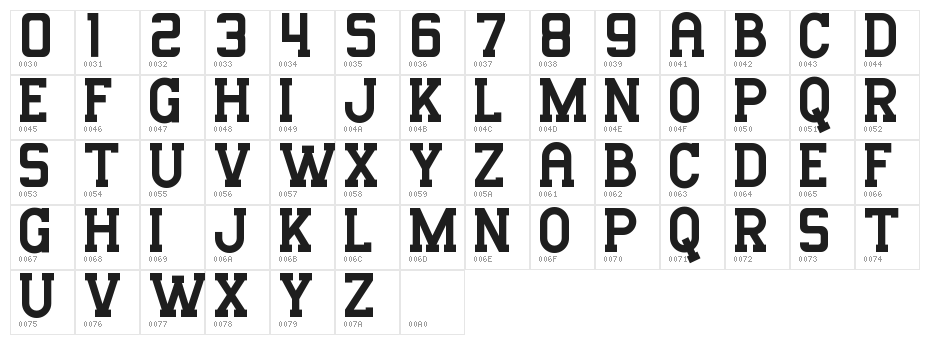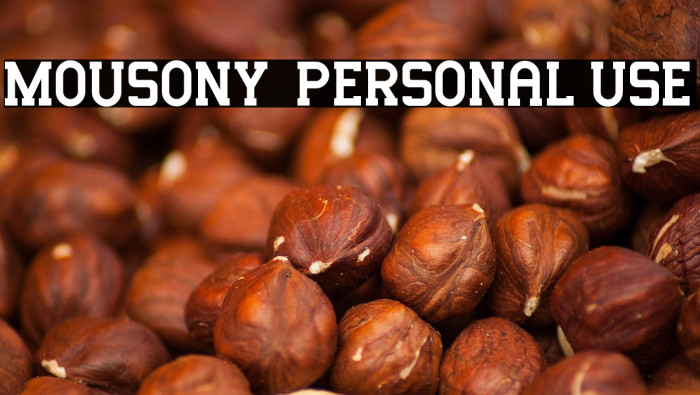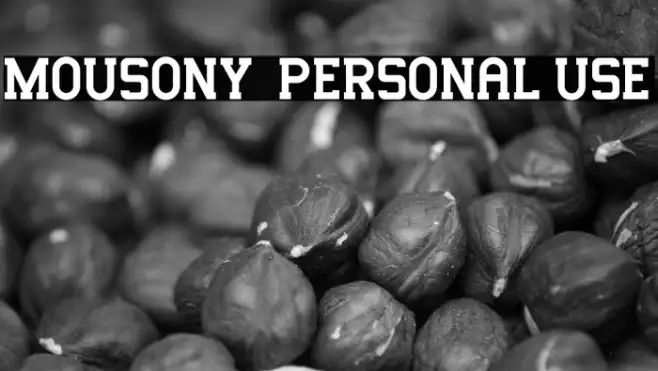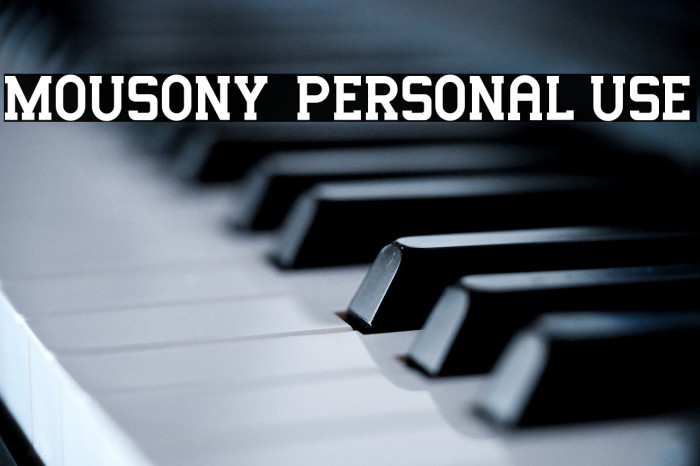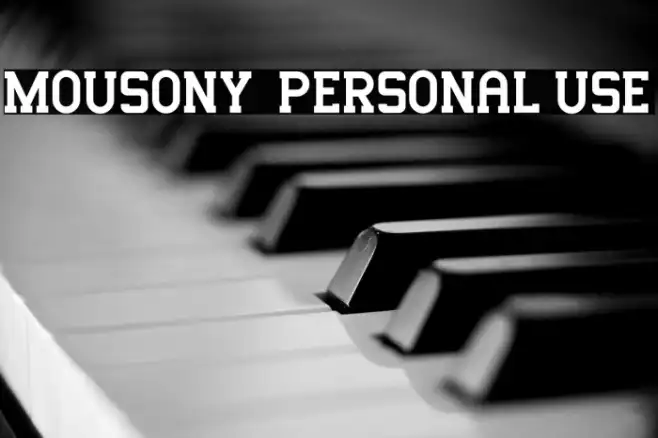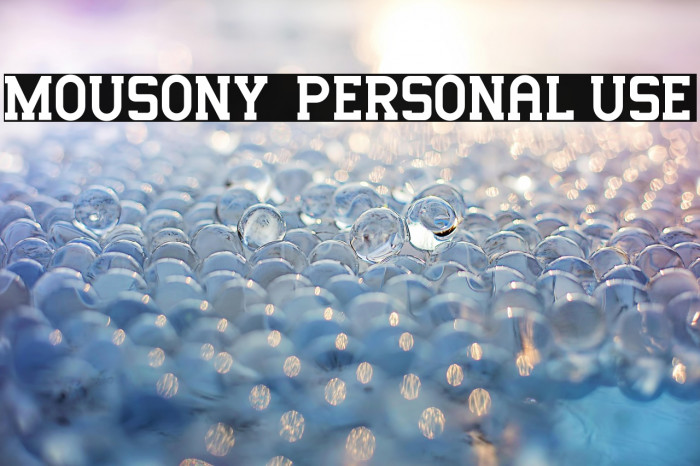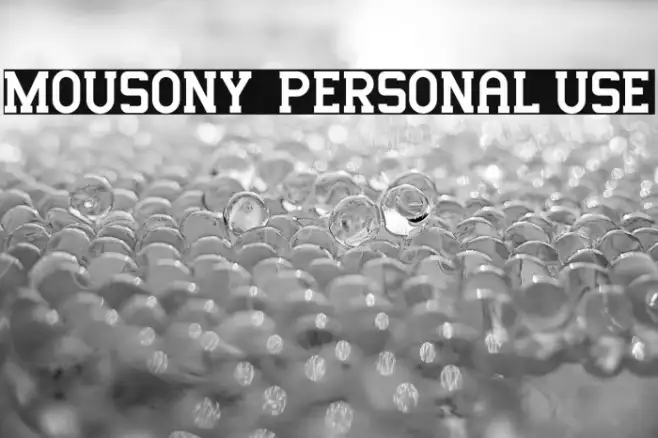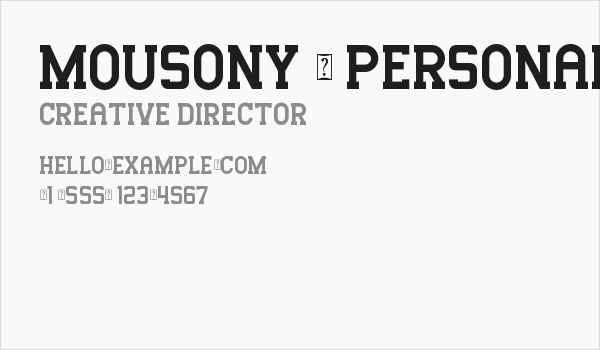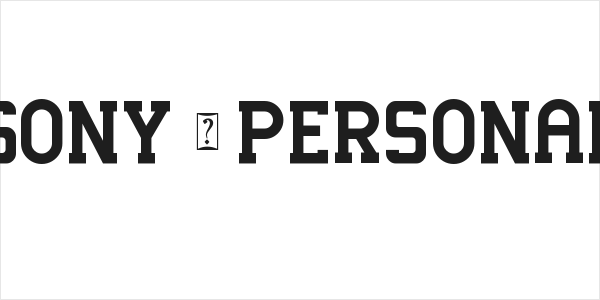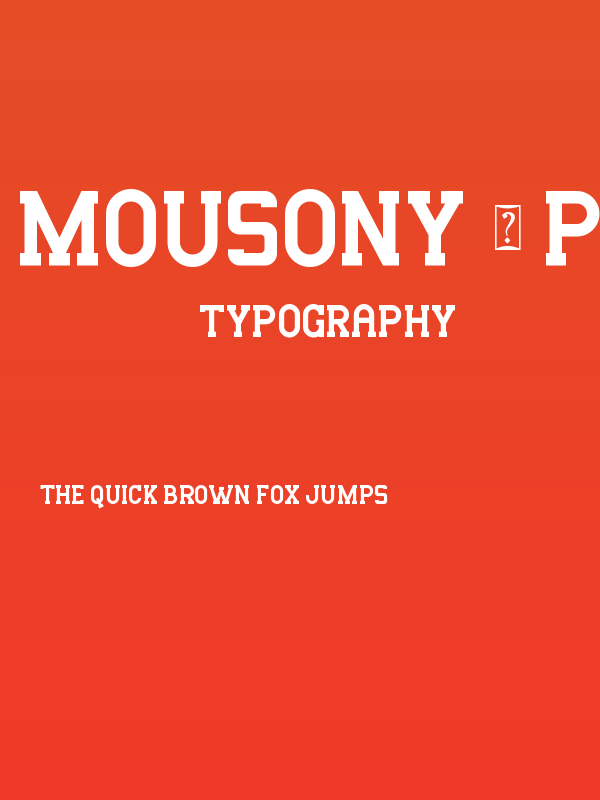
Mousony - Personal Use Font
Mousony - Personal Use Description
This font features a bold and robust design with a strong presence, characterized by its thick strokes and geometric shapes. The uppercase letters are uniform in height, with a consistent weight that gives it a solid and impactful look. The numbers follow the same bold style, ensuring readability and emphasis. The font's design is reminiscent of industrial or sports themes, making it suitable for projects that require a strong and assertive typeface. Its clean lines and structured form make it versatile for various design applications.
| Proposed Projects | Ideal for sports branding, posters, headlines, and any project needing a bold, impactful typeface. |